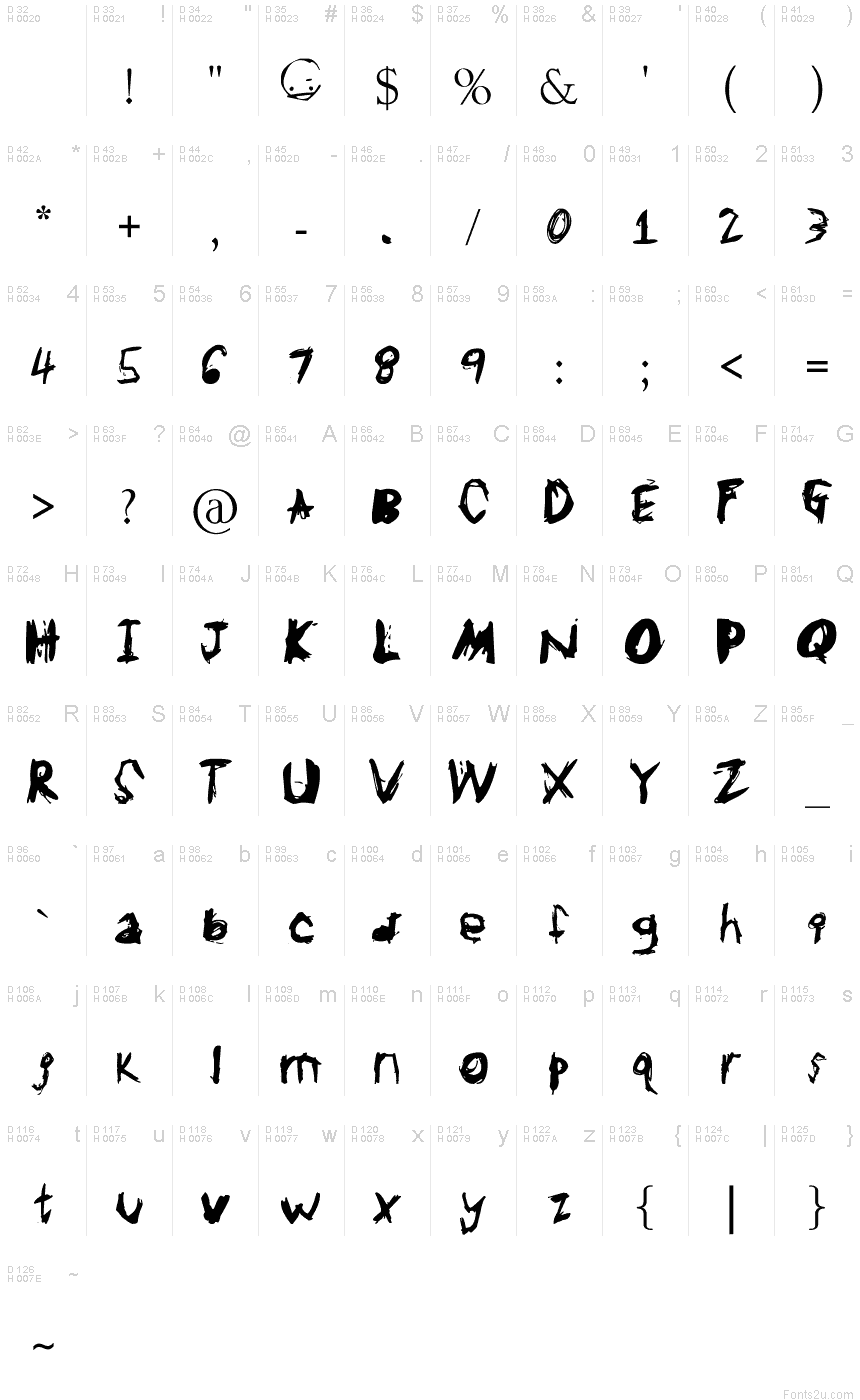
GL Scratchy is a free distressed display font with bulky, torn-looking letterforms. Its uneven strokes break into sharp cuts, blots, and ragged edges. They look roughly cut by hand.
Horror and underground music are the clearest settings for this rough lettering. It can turn concert posters and game graphics into part of the scene, echoing ripped paper, claws, or ink smears. Skate merchandise and Halloween event material also suit its battered, unruly outlines.